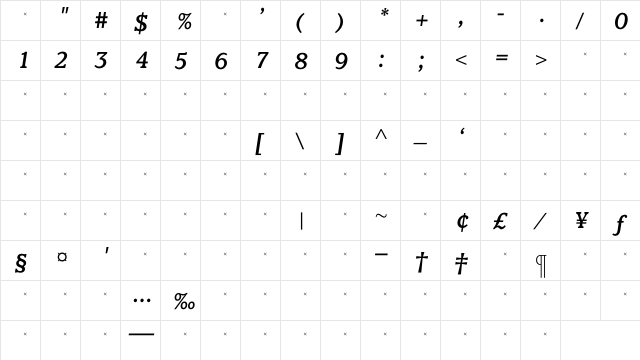
ClaremontMedItalTab Regular
Design Context for ClaremontMedItalTab Typeface
ClaremontMedItalTab offers clean, dependable letterforms without strong stylistic allegiance, making it a practical choice for designers who need flexibility.